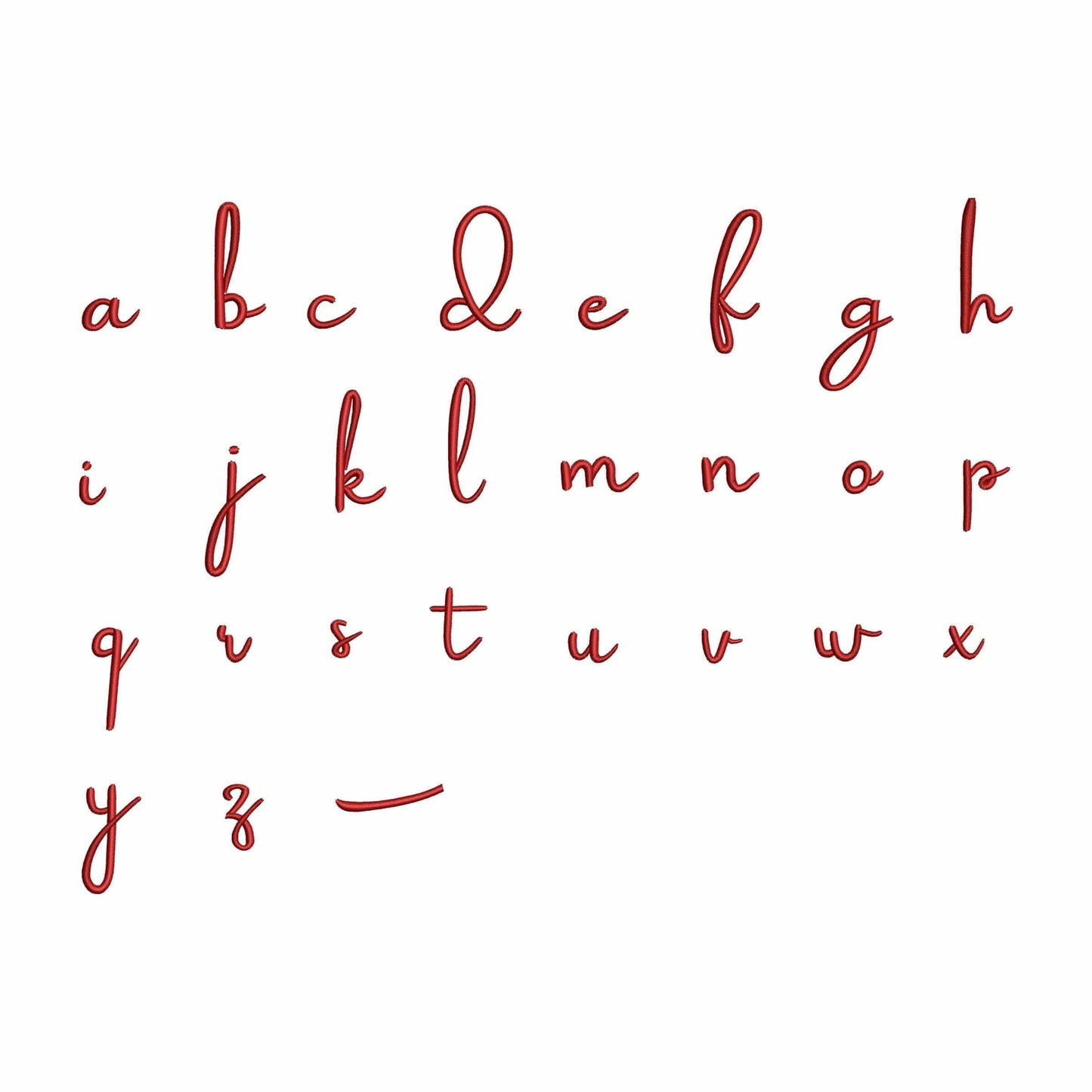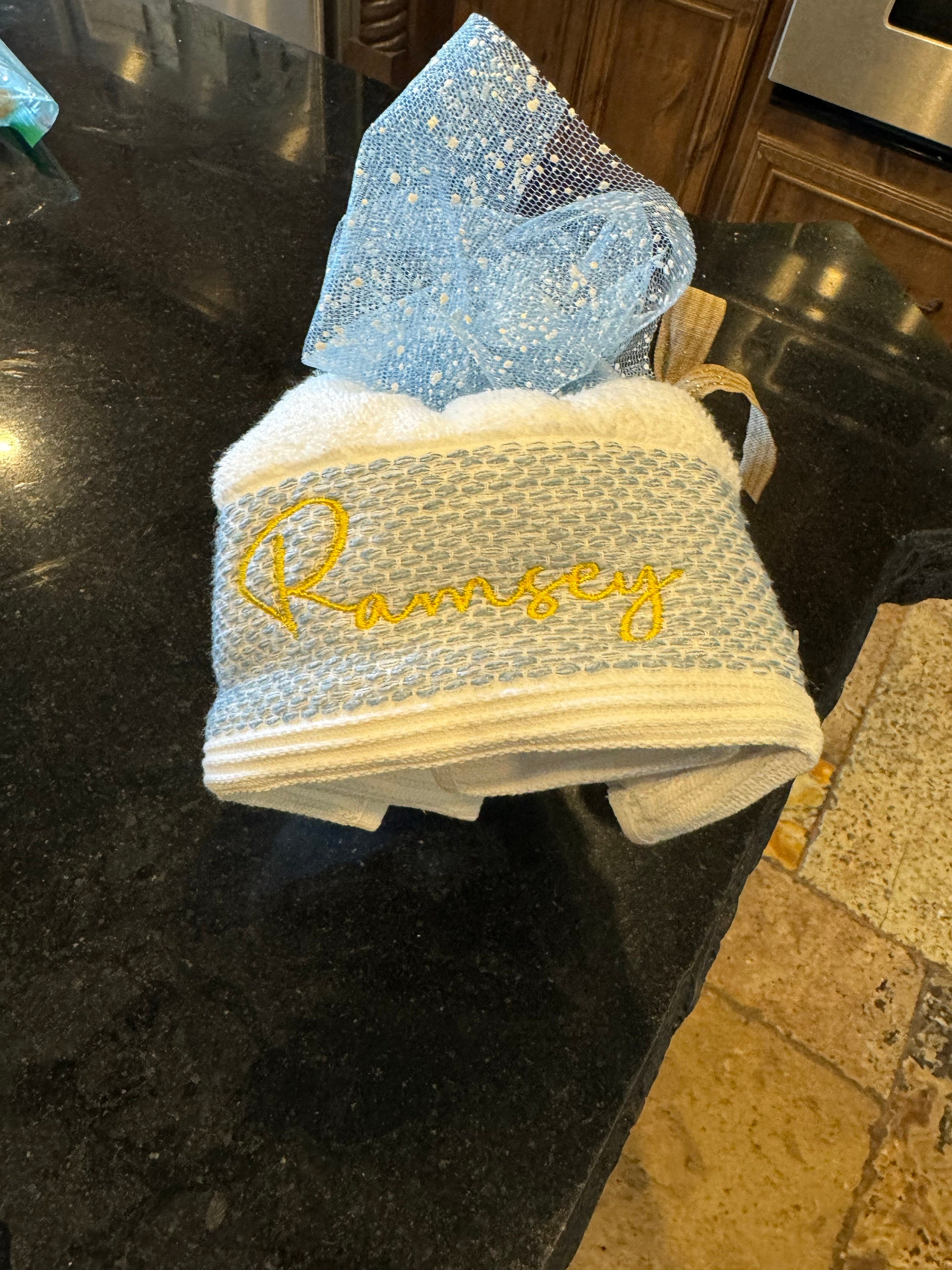
Adelie with tails - Embroidery font
• Included: a-z (lowercase letters), a-z (last letters with tails), left tail
This machine embroidery font with tails works well for monograms, name shirts, towels, gifts, and feminine decorative embroidery.
A strong choice for makers who want script lettering with flowing tails for elegant personalized projects.